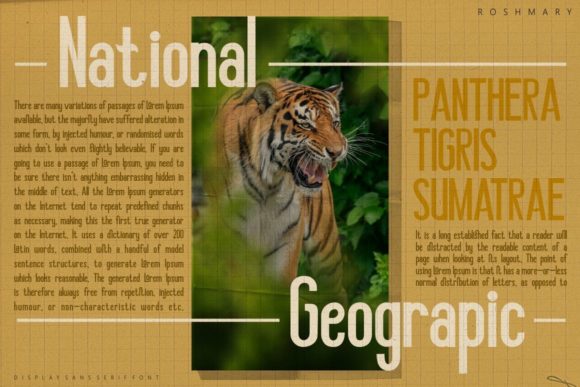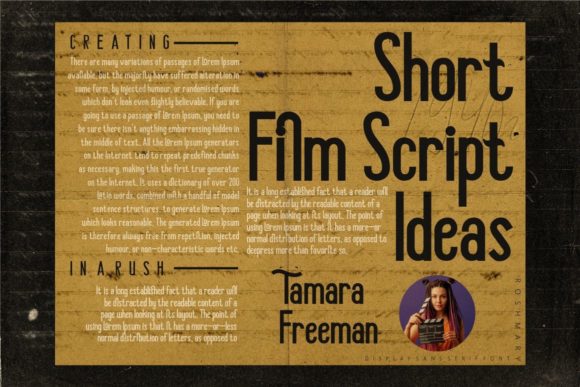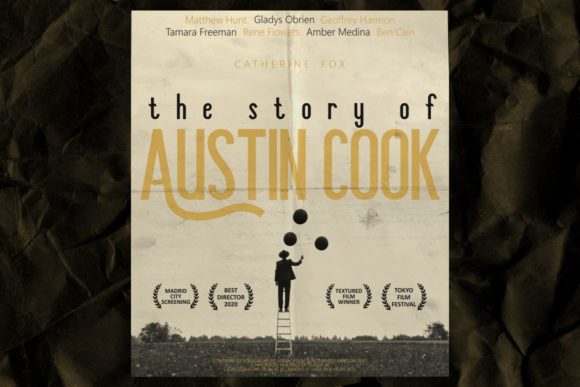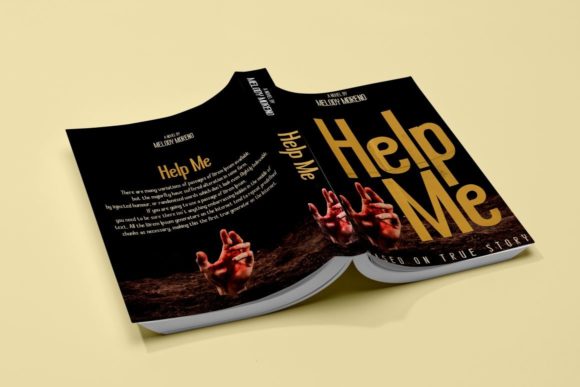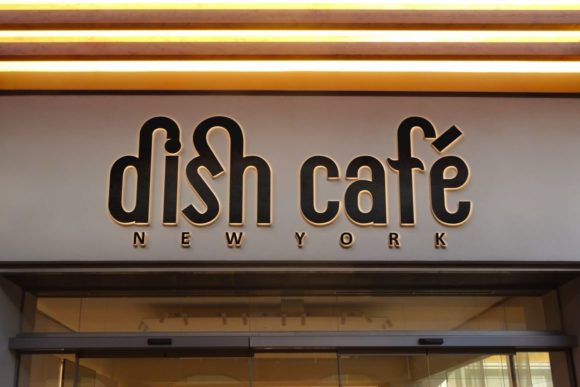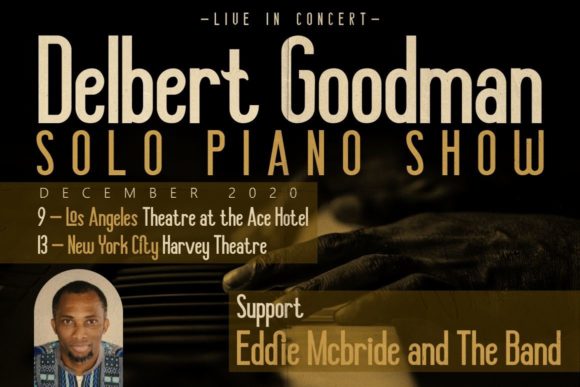
Introduction to Roshmary Font
Roshmary is an elegant sans serif font.
It can easily be matched to an incredibly large set of projects, so add it to your creative ideas and notice how it makes them stand out This font is PUA encoded which means you can access all of the glyphs and swashes with ease.